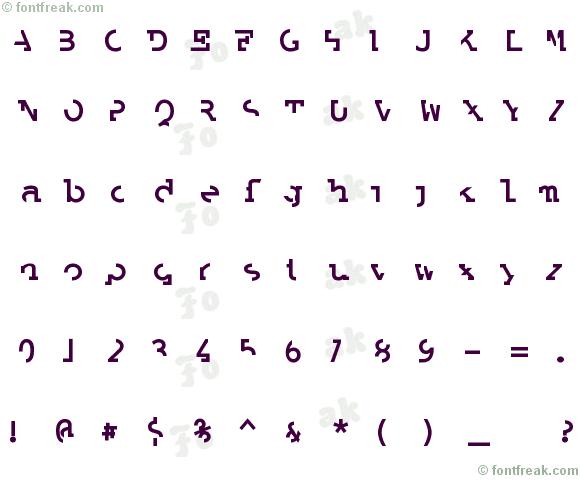
Labrat
Labrat Bold
Labrat is a striking display font designed by Apostrophic Labs, available for free download under a freeware license. This font falls into the sans-serif category, characterized by its clean lines and modern aesthetic. The visual appeal of Labrat lies in its bold stroke weight, which adds a sense of confidence and readability to any design. The font features a smooth, uniform spacing that ensures clarity, making it suitable for various applications.
The Labrat font is particularly well-suited for a range of creative projects. Its bold nature makes it an excellent choice for eye-catching movie posters, where impactful titles are essential. Additionally, it can enhance restaurant menus, giving a contemporary flair that attracts diners. Graphic designers may find Labrat ideal for branding materials, such as logos and business cards, where a strong visual identity is crucial. Furthermore, this font can add a unique touch to event promotions, including flyers and invitations, ensuring that important information stands out.
Target audiences for the Labrat font include graphic designers looking for versatile typefaces, small business owners seeking to establish a memorable brand identity, and content creators who want to enhance their visual storytelling. The font's bold characteristics cater to those who appreciate a modern and dynamic approach to design, making it a valuable addition to any creative toolkit.
What truly sets the Labrat font apart is its balance of boldness and readability. It captures attention without sacrificing clarity, making it a superb choice for impactful designs. Whether you’re working on a personal project or professional branding, the Labrat font free download offers an exceptional tool that embodies contemporary design principles while remaining accessible for all users.